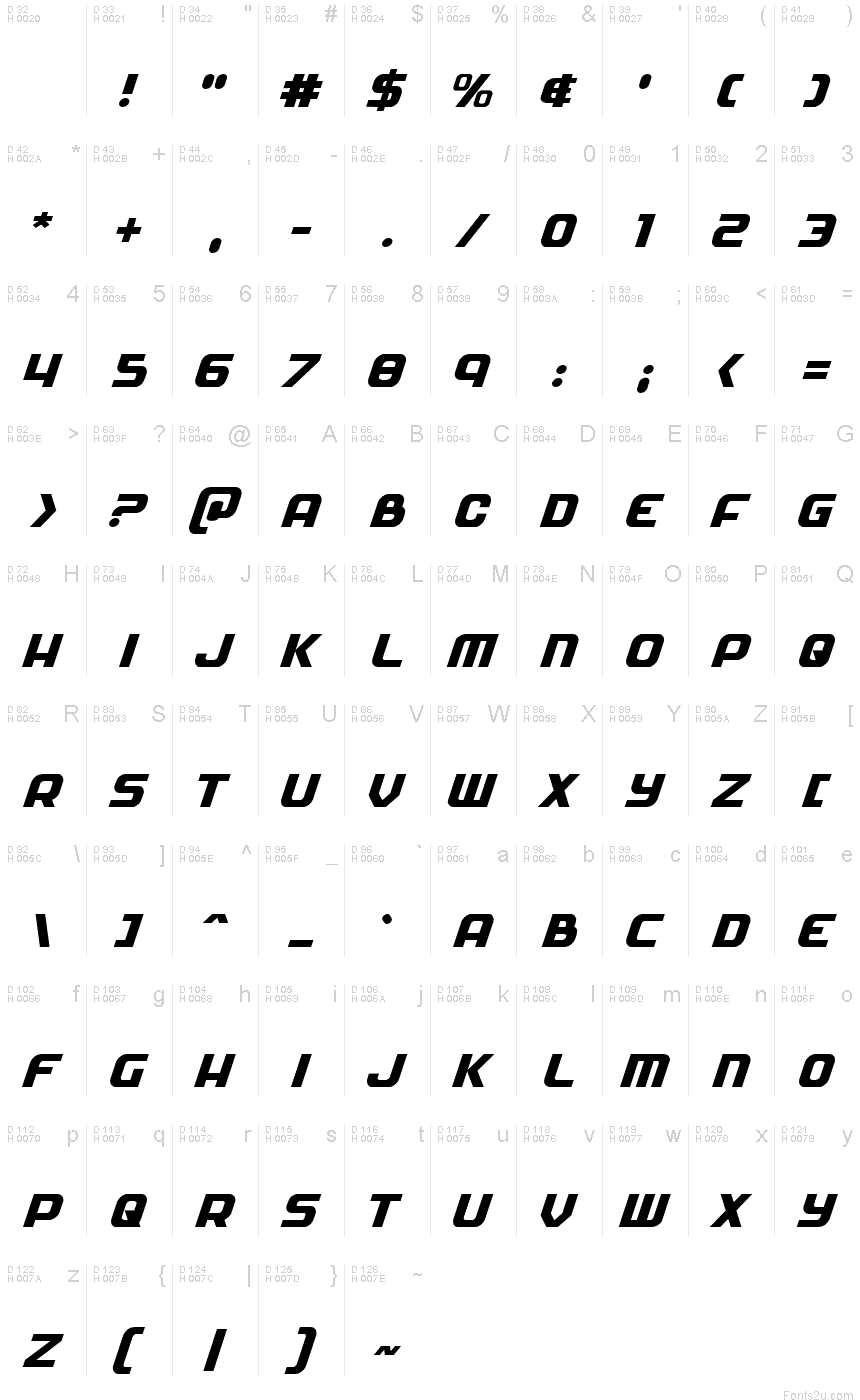
Soldier Italic by Daniel Zadorozny of Iconian Fonts is a free heavy italic sans serif with the forceful profile of sports lettering. Its broad, forward-leaning capitals combine rounded outer curves with abrupt diagonal cuts and tight, squared inner spaces. Several letters end in pointed wedges, giving the line a fast, engineered edge.
Motorsport teams, athletic labels, and gaming brands could use its dense weight and aggressive slant to build logos, packaging, merchandise, and event posters around speed and competition. The lettering is especially suited to audiences drawn to racing culture and action games, where its hard corners and sweeping stance can echo vehicle graphics, uniforms, and interface panels.
Soldier Italic